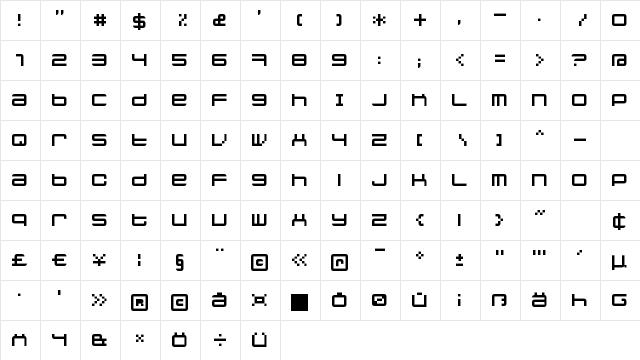
jethose FULL Regular Font Preview
jethose FULL Regular
Design Context for jethose FULL Typeface
jethose FULL offers clean, dependable letterforms without strong stylistic allegiance, making it a practical choice for designers who need flexibility.